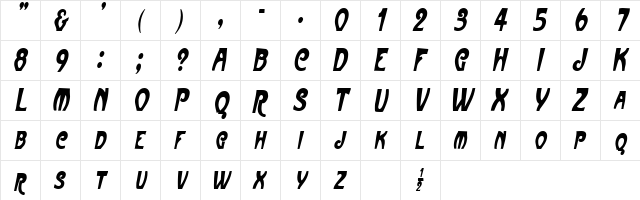
FrenchBeanCondensed Oblique Font Preview
Design Context for FrenchBeanCondensed Typeface
FrenchBeanCondensed offers clean, dependable letterforms without strong stylistic allegiance, making it a practical choice for designers who need flexibility. Its italic angle brings a sense of urgency and motion to the letterforms. The condensed width makes it efficient for tight spaces without sacrificing legibility.
Pro Tip: Use FrenchBeanCondensed for emphasis, pull quotes, and subheadings where its slanted energy can add rhythm to the layout.